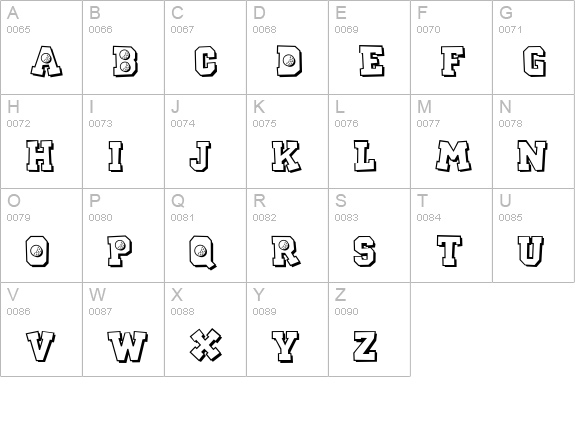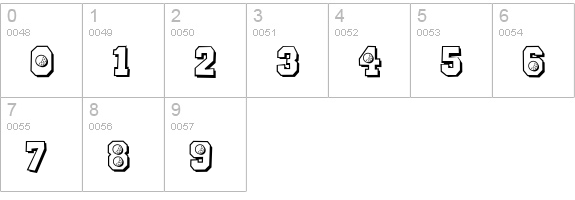
CK Sports Golf Font Details
Introducing CK Sports Golf font - a sleek and modern typeface perfect for all your sports-themed design projects. With its clean lines and bold strokes, CK Sports Golf font exudes a sense of strength and elegance, making it a versatile choice for various applications such as logos, posters, branding, and more. This font is designed specifically for golf-related content, adding a touch of sophistication to your designs. The best part? CK Sports Golf font is available for free download at FontsMarket.com! Simply head over to the website and get your hands on this amazing font to elevate your designs to the next level. Don't miss out on this opportunity to add a professional and stylish touch to your projects with CK Sports Golf font.